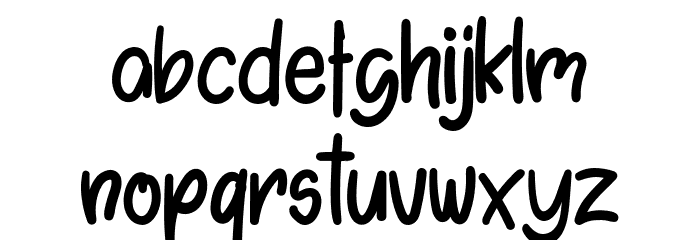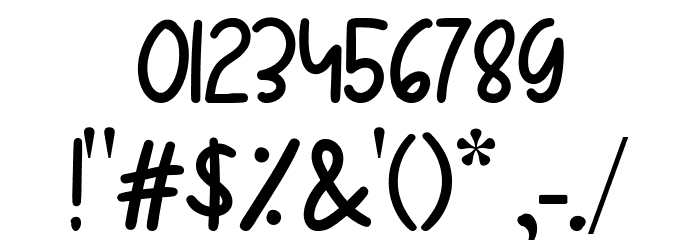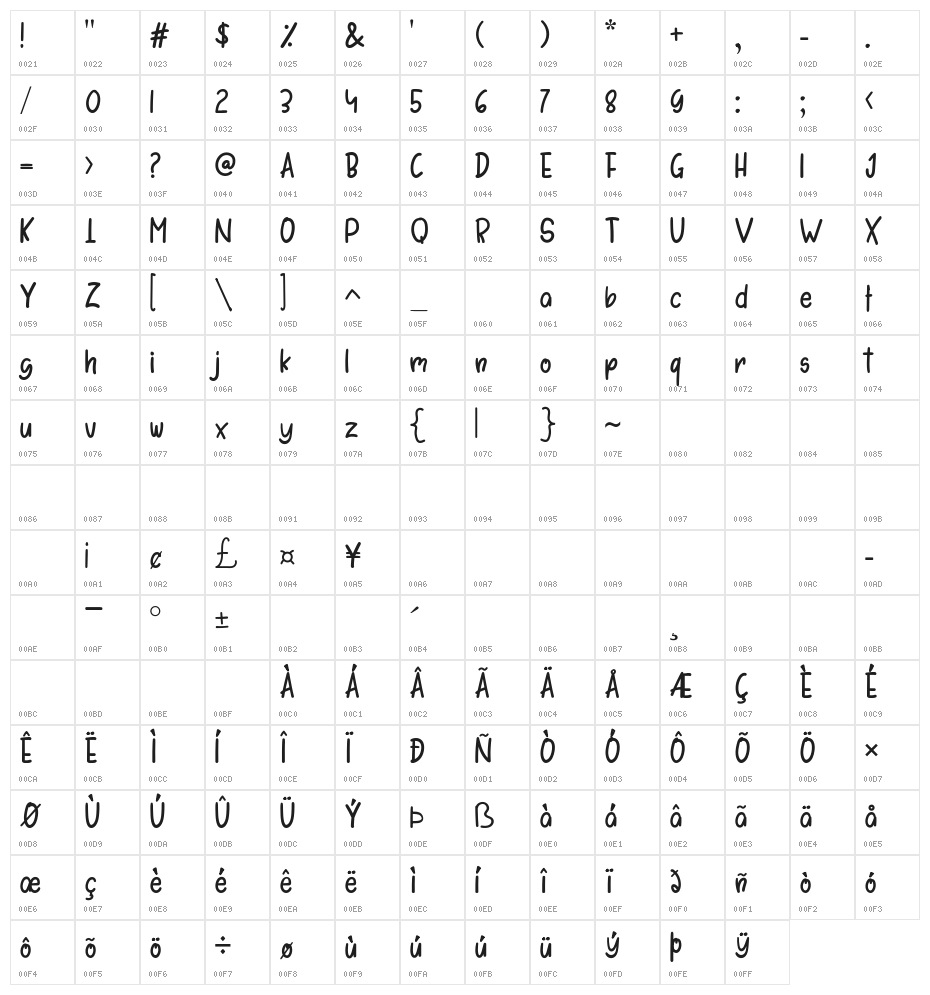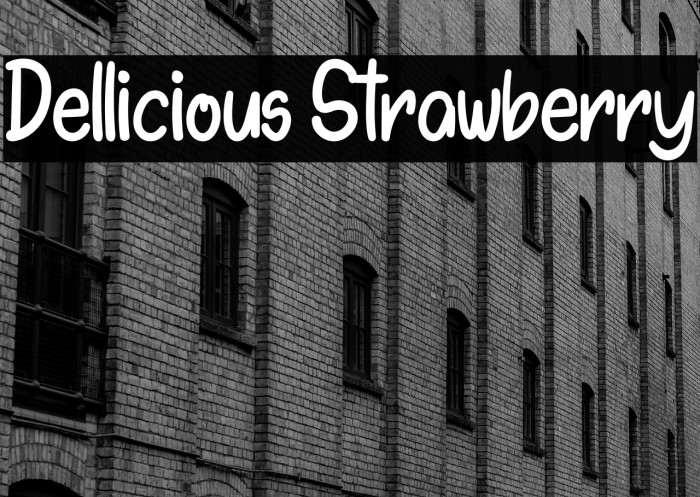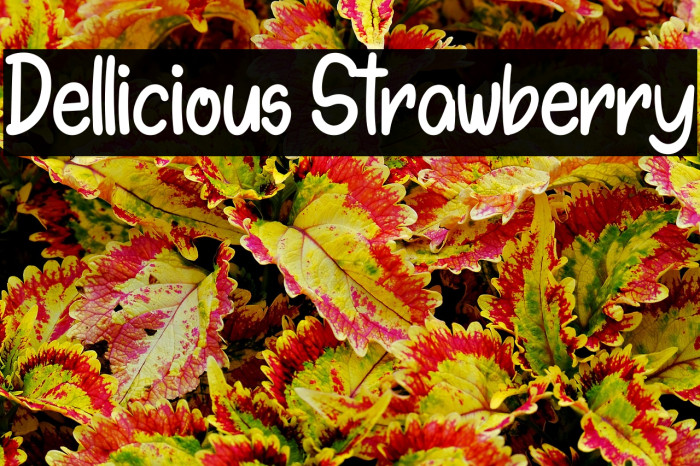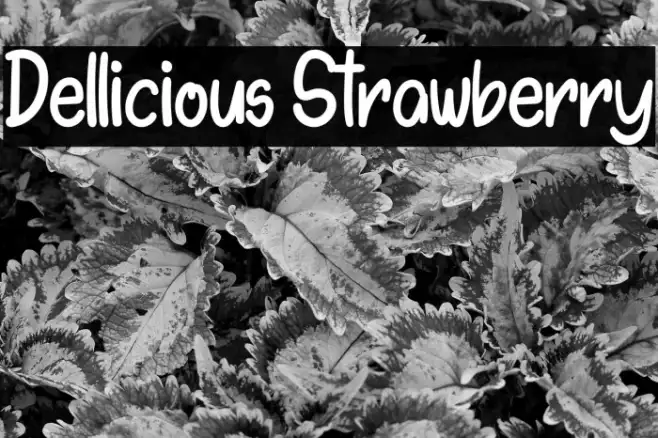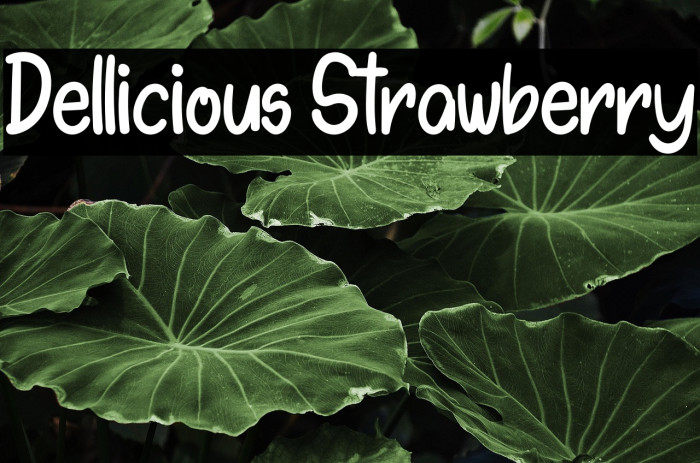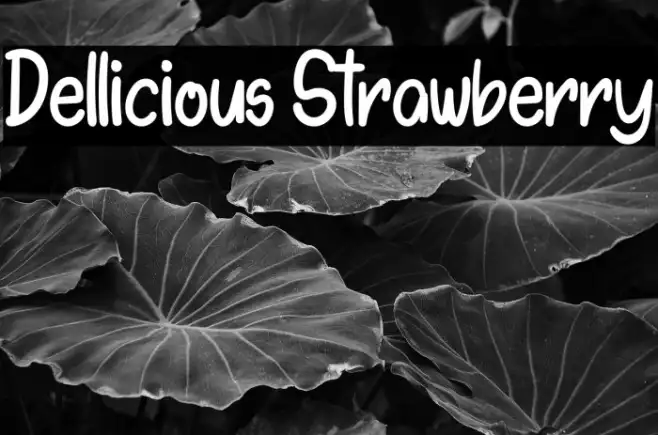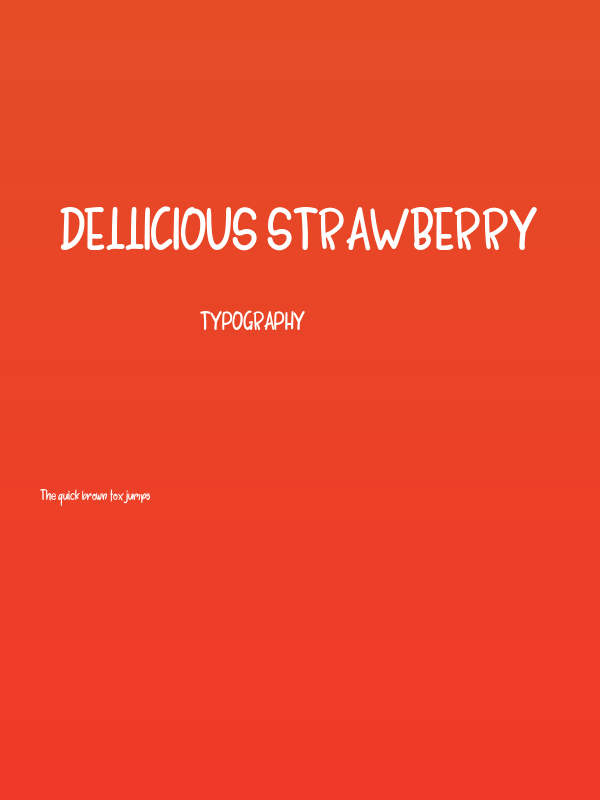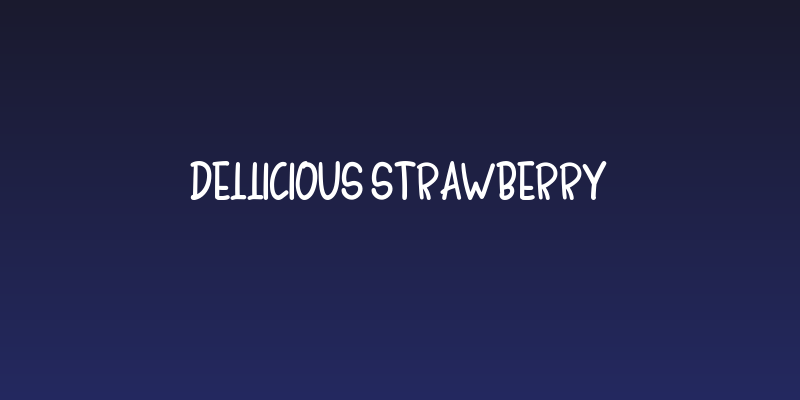
Dellicious Strawberry Font
This playful and whimsical font features rounded, hand-drawn characters with a casual and friendly appearance. The letters have a consistent stroke width, giving it a uniform look, while the slightly irregular shapes add a touch of charm and personality. The uppercase and lowercase letters are well-balanced, with a slight slant that enhances its informal style. The numbers and special characters maintain the same playful aesthetic, making it versatile for various design needs. Its approachable style makes it suitable for projects that aim to convey warmth and friendliness.
A playful, hand-drawn font with rounded, casual characters.
- Proposed Projects: Ideal for children's books, greeting cards, playful branding, and informal invitations.
- Overall Style: Casual
- Use Case: Headlines, Logos, Informal Text